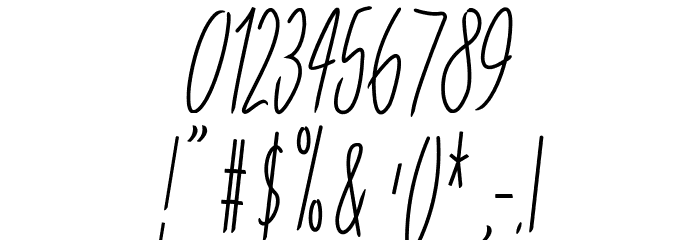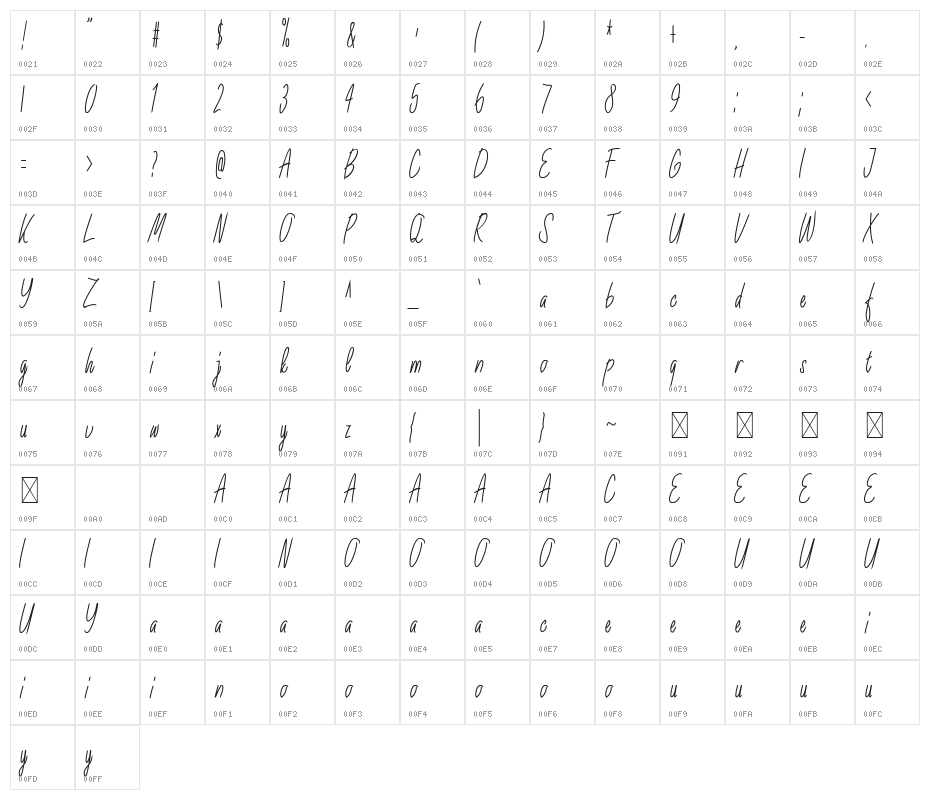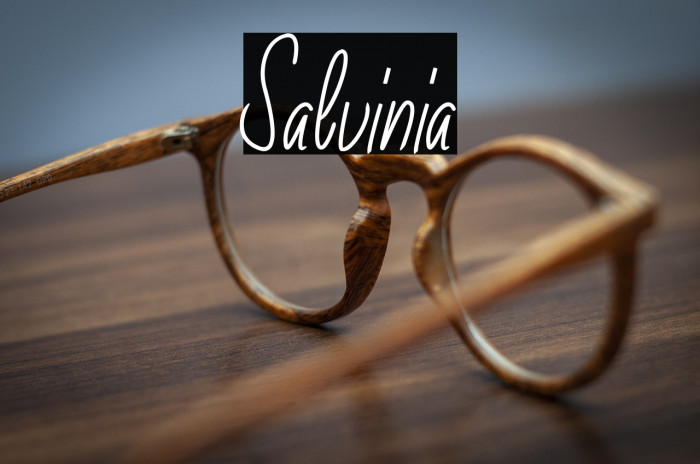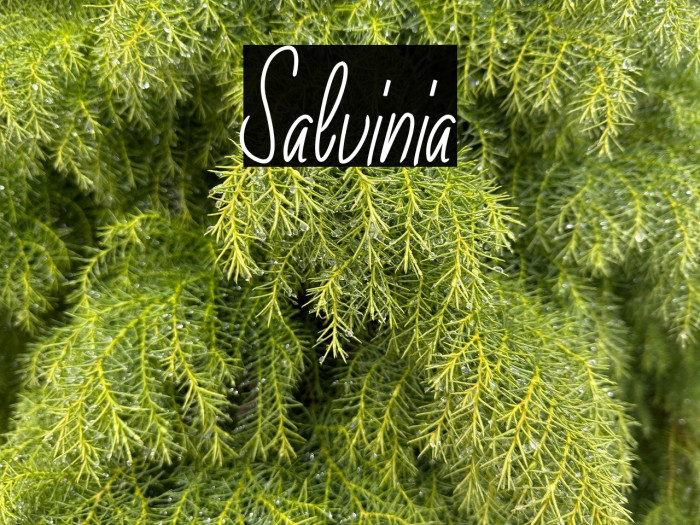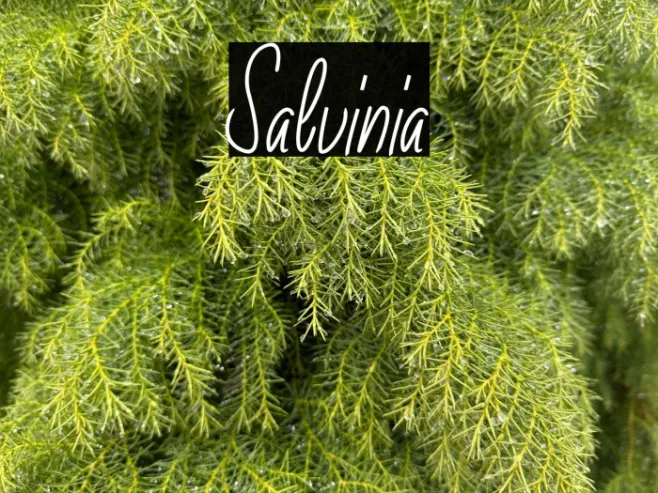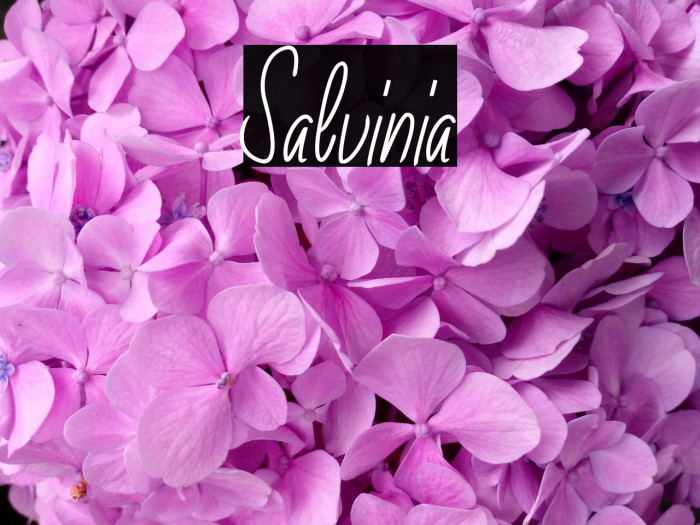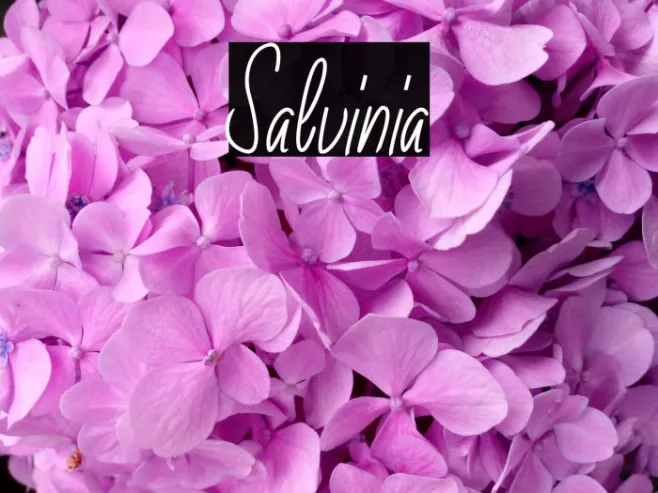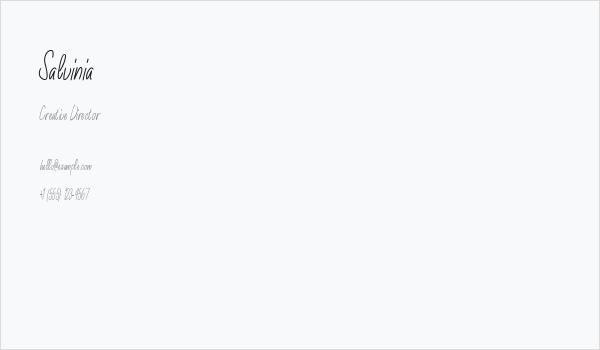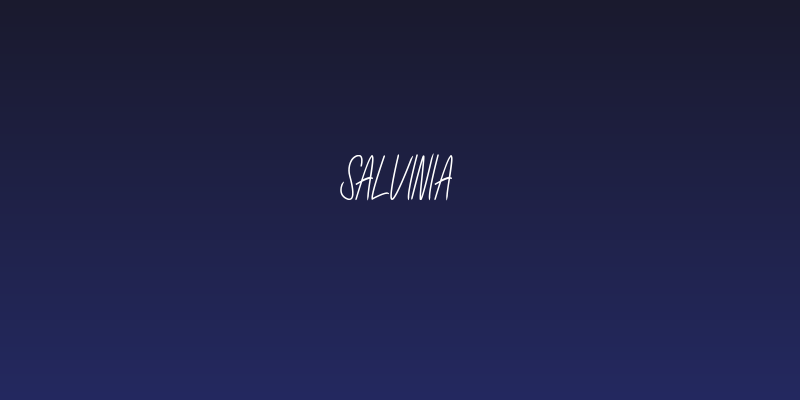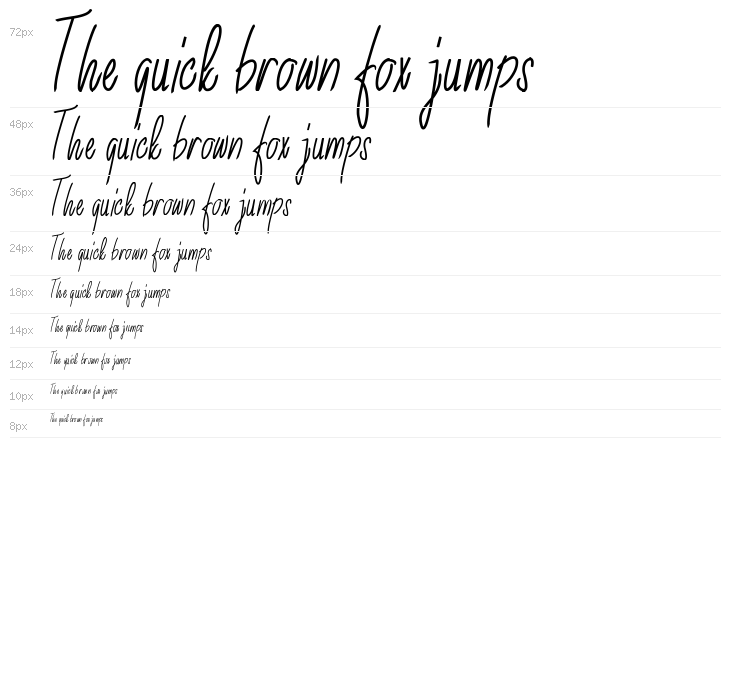
Salvinia Font
Salvinia Description
This font exudes a casual yet elegant handwritten style, characterized by its fluid and connected letterforms. The uppercase letters are tall and slightly slanted, giving a sense of movement and grace. The lowercase letters maintain a consistent flow, enhancing readability while retaining a personal touch. Numbers and special characters are designed with the same flowing style, ensuring uniformity across all elements. The overall appearance is both sophisticated and approachable, making it suitable for a variety of creative applications.
| Use Case | Logos, Invitations, Social Media |
| Proposed Projects | Ideal for wedding invitations, greeting cards, personal branding, and social media graphics. |